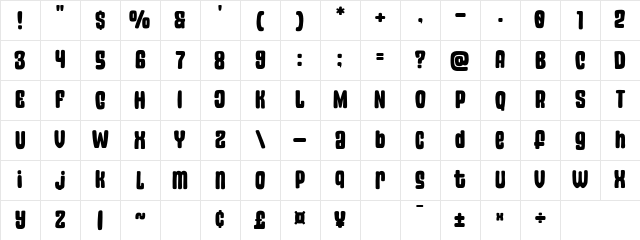
Display Plan Regular
Foundry: Khurasan
Designer: Khurasan
Design Context for Display Plan
Display Plan is built around its visual character rather than neutral utility - its distinctive forms are designed to make an impression at display sizes.
Font Pairing: Pair with a clean neutral sans-serif for body copy to let Display Plan's character lead without overwhelming the composition.
Pro Tip: Use Display Plan exclusively at display sizes - it was designed to be seen, not read at length. Let a neutral companion handle body copy.